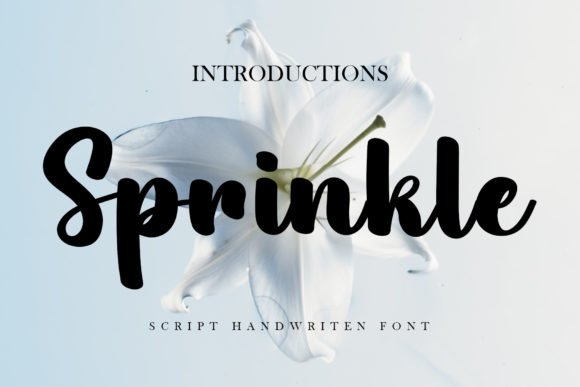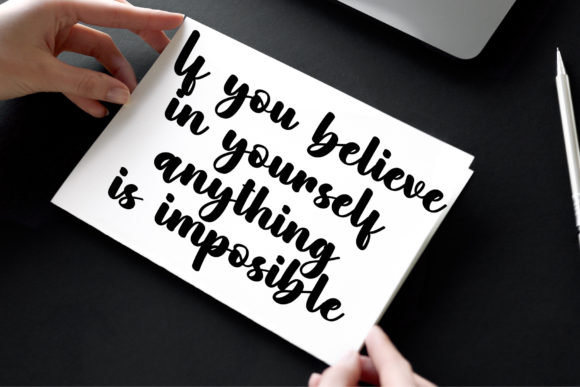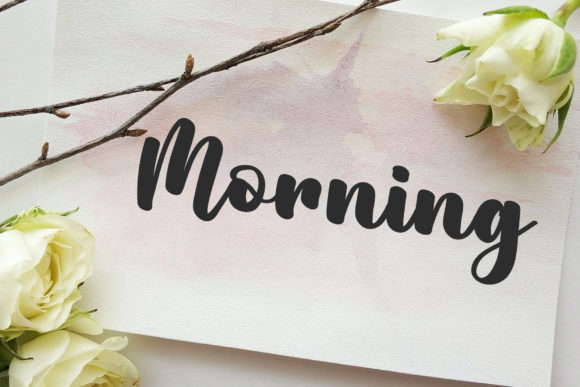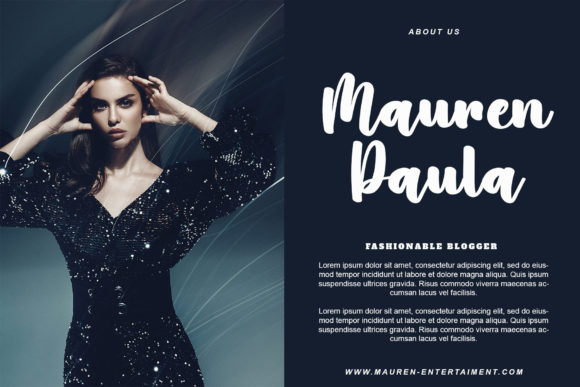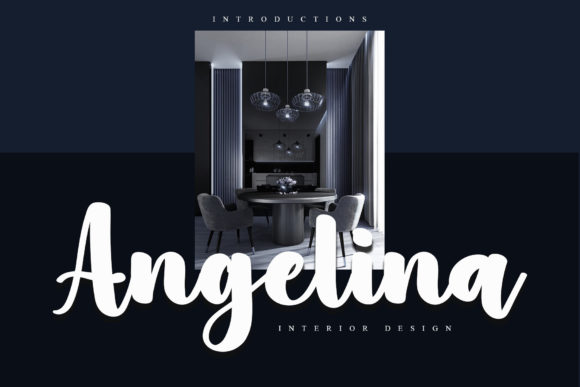
Sprinkle Font
About Sprinkle Font
“Sprinkle” is a captivating and whimsical script font that captures attention with its graceful and smooth curves. This font’s unique and playful nature makes it an excellent choice for various design projects, particularly those related to fashion branding and editorial designs.
The fluidity of the curves in “Sprinkle” gives it a dynamic and lively appearance, making it well-suited for designs that aim to stand out and make a statement. Whether you’re working on fashion-related materials, editorial layouts, or any creative project that requires a touch of whimsy, “Sprinkle” can help you achieve the desired effect.
The font’s versatile style allows it to adapt to different contexts while still maintaining its characteristic charm. By incorporating “Sprinkle” into your designs, you can infuse them with a sense of creativity, energy, and fun.
In summary, “Sprinkle” is a font that brings a delightful and whimsical touch to your designs. Its smooth curves and playful character make it a great choice for fashion branding, editorial layouts, and any project where a unique and captivating aesthetic is desired. Add “Sprinkle” to your creative arsenal and watch how it transforms your designs into eye-catching and engaging works of art.